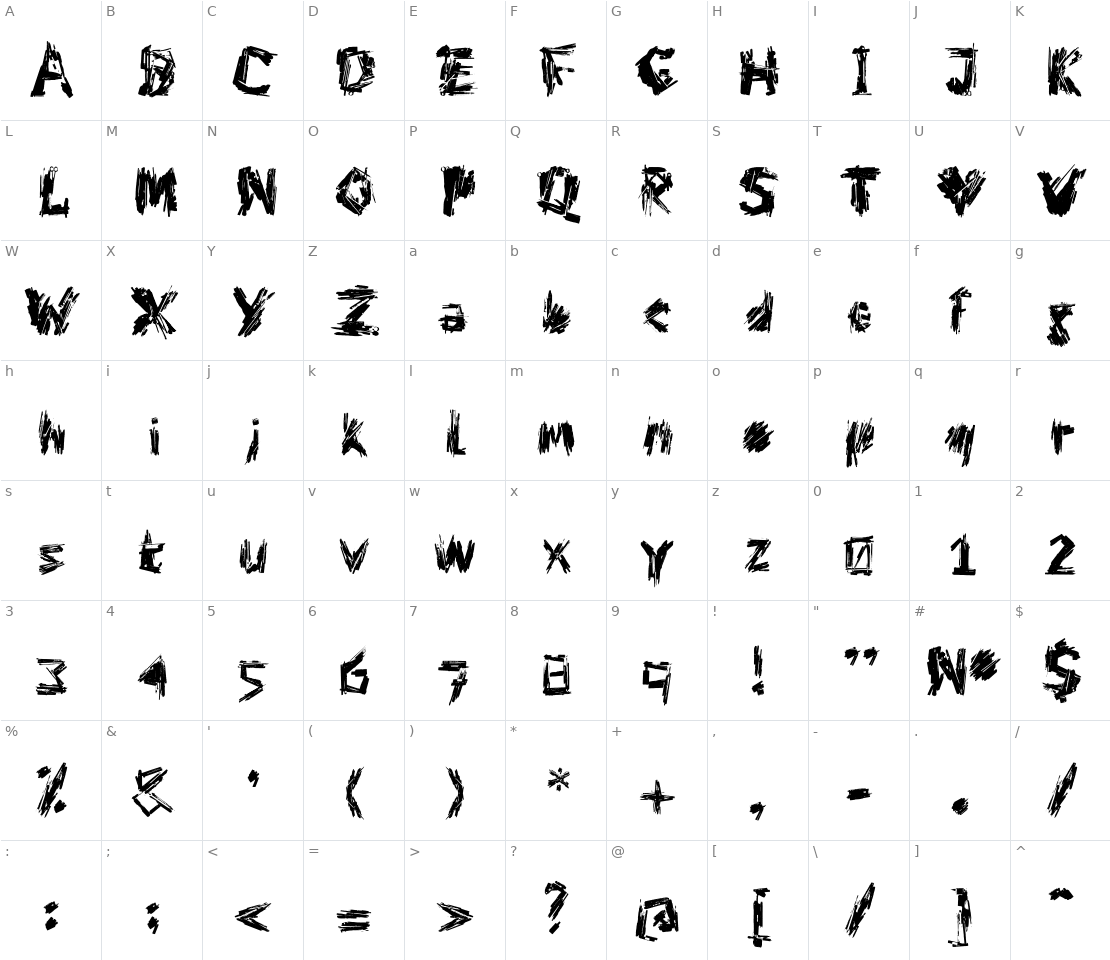
DF Charlie go!
DF Charlie go! is a rough, scratchy display face from Ko Sliggers that feels like it was scrawled in a hurry with a worn-out brush and then photocopied a few too many times. The distressed texture is baked into every letterform, giving it a raw, grungy energy that works for punk flyers, gig posters, and headlines that need to feel urgent and unpolished. It's got real attitude without relying on heavy weight to get there.